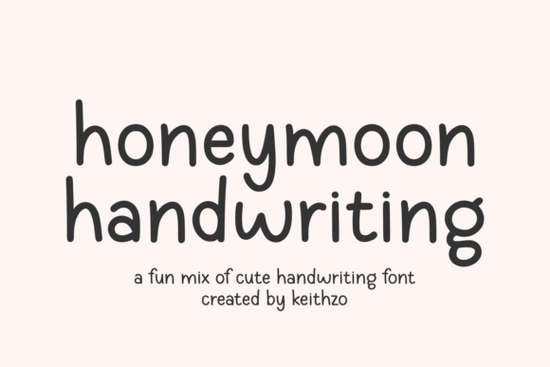
When you are working on a new brand identity or personalizing a gift, sometimes standard letters just do not carry enough emotion. Handmade styles add a human touch that machines struggle to replicate perfectly. Honeymoon Handwriting is one such typeface designed to bring warmth and consistency to your creative projects. Unlike chaotic scrawl styles, this collection mimics neat penmanship with a playful spirit.
If you have tried typing invitations and found the result looked too stiff, switching to a cursive design family can solve that problem quickly. This particular script maintains legibility while still feeling organic. You do not need to be a calligrapher to use it effectively, either. The characters are shaped to connect smoothly, saving you time on kerning adjustments while ensuring the final output looks polished and intentional.
What distinguishes this handwriting style from others?
Many designers seek fonts that balance readability with flair, and finding that middle ground often involves testing numerous options. A key feature of Honeymoon Handwriting is its clean, consistent line width. Most rough brush pens vary in thickness from thin hairlines to thick blocks, which can distract from the message. In contrast, this font keeps the stroke weight relatively uniform across capitals and lowercase letters.
Another factor is the rounded nature of the characters. Soft edges invite the reader to interact with the design gently rather than aggressively. This makes the text suitable for themes centered around care, relationships, or child-friendly topics. It avoids sharp corners that might otherwise communicate toughness or rigidity. Instead, it offers a sweet and optimistic vibe that resonates well with audiences seeking comfort.
- The strokes are continuous, creating a fluid flow between letters.
- The x-height is generous, ensuring it remains clear even at small sizes.
- Caps are fully connected, providing a seamless header effect.
How can you apply this font in your workflow?
Sellers looking to launch print-on-demand stores often face challenges when choosing assets that appeal to niche markets. A cheerful aesthetic works particularly well for baby shower gifts, wedding favors, and teacher appreciation materials. Because the letterforms feel authentic yet digital, they integrate easily onto mugs, t-shirts, and tote bags without pixelation issues.
Beyond physical products, digital planners benefit greatly from this tool. Creating sections for notes or journals feels more inviting when the text mimics a personal entry. Users appreciate the distinction between printed information and handwritten reminders. You might pair this with a clean sans-serif font for the bulk of the text, allowing the script to pop up as headlines or emphasis areas.
No single font works for every situation. Since this is designed with simplicity in mind, very long sentences displayed in all caps might feel cramped or repetitive. It is best reserved for short phrases, titles, and decorative elements rather than dense blocks of body copy. Reading large amounts of text in a handwritten format can become fatiguing for the eyes over time.
For a broader view of the available variations and technical details, you can explore the specific design page to see sample sheets. If you decide to use the software outside of Creative Fabrica directly, searching the main store archives for Honeymoon Handwriting helps locate the latest bundle updates.
Sometimes, a smaller touch is exactly what is needed to soften a logo mark. For delicate accents that sit alongside logos, taking a look at delicate script libraries might offer inspiration for finer details. Finding the right balance between the heavy brush strokes of other trends and lighter, neater lines defines the success of your typography choices.
Quick tips for successful integration
To maximize the effectiveness of this asset in your upcoming campaigns, keep these recommendations in mind. Start by sketching your layout on paper or a mockup tool to visualize how much room the script takes up. Test the size scaling early in the process to catch any illegible intersections before exporting final files.
Taking a measured approach to your font selection ensures that your projects remain professional and accessible. By prioritizing readability and emotional resonance, you create content that people actually want to read and share.